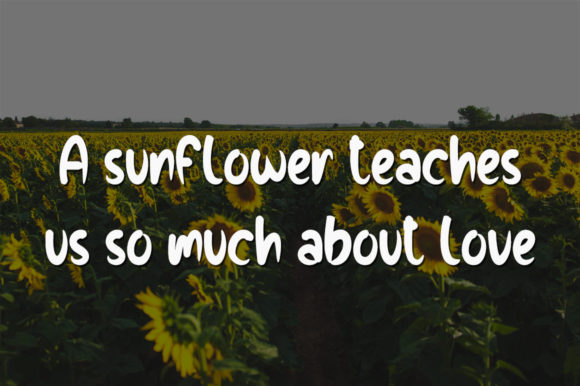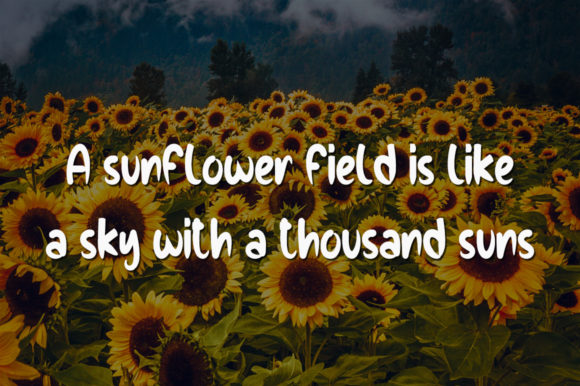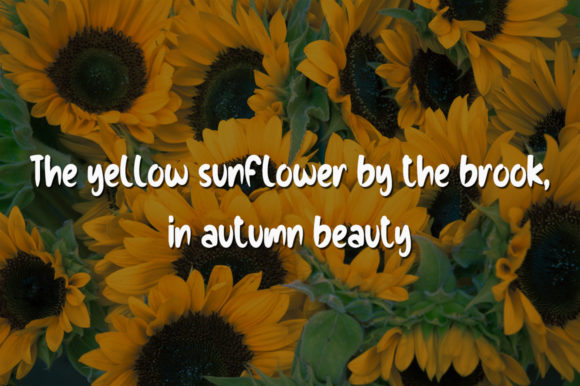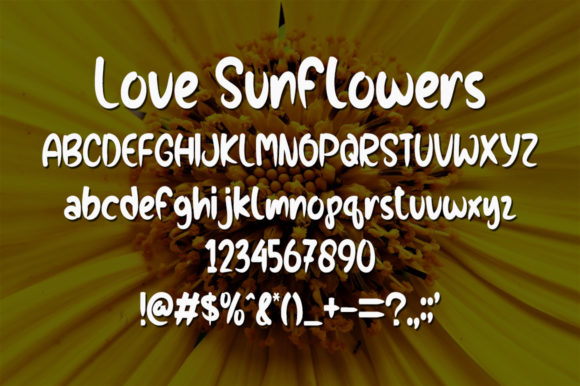
Introduction to Love Sunflowers Font
Have you ever stumbled upon a design project that sparks joy and creativity? Maybe it’s a beautiful sunset, a vibrant painting, or a handwritten note from a loved one. For designers, these moments often serve as a reminder of the power of creative expression. And for those who appreciate the beauty of handwritten fonts, the Love Sunflowers Font is a treasure trove of inspiration.
This classic handwritten font is a design resource that never fails to put a smile on our faces. With its elegant, flowing lines and soft curves, it’s the perfect choice for creating high-quality designs that exude warmth and personality. Whether you’re working on a digital project or printing out a physical design, the Love Sunflowers Font is sure to add a touch of magic to your creations.
One of the best things about this font is its versatility. Use it to create eye-catching graphics with a transparent background, or pair it with other fonts to add depth and interest to your designs. And the best part? It’s available for free download, making it an accessible design resource for creatives of all levels.
Key Features of Love Sunflowers Font
- High-quality, free download design resource ideal for creative projects
- Unique, hand-drawn design featuring sunflowers with a transparent background for versatile usage
- Perfect for adding a touch of warmth and personality to your design, from invitations to branding materials
- Love Sunflowers Font is a one-of-a-kind design resource that will elevate your creative project to the next level
Honest Review: Love Sunflowers Font
As a designer, I’m always on the lookout for high-quality design resources that can elevate my creative projects. The Love Sunflowers Font is one such resource that caught my attention.
What works well is the playful, whimsical feel of this font, making it perfect for projects that require a touch of elegance and sophistication. The font is available for free download, which is a huge bonus for designers working on a budget.
- High-quality design: The Love Sunflowers Font is beautifully crafted, with crisp lines and smooth curves.
- Transparent background: This allows designers to easily use the font on any background, making it incredibly versatile.
- Perfect for creative projects: Whether it’s a wedding invitation, a children’s book, or a promotional campaign, this font is sure to impress.
However, I do have to mention that the font is a bit limited in terms of its versatility. It’s primarily designed for use in floral-themed projects, which might not be suitable for all design projects.
Overall, I’m impressed with the Love Sunflowers Font. Its high-quality design and transparent background make it a valuable addition to any designer’s toolkit. While it may have some limitations, it’s a great resource for designers working on creative projects that require a touch of elegance and sophistication.
How to Use Love Sunflowers Font
For Adobe Photoshop and Illustrator, import the font file as a vector graphic or image. Use the font to create unique designs, such as logos, icons, or typography-based art. The high-quality image will ensure crisp and clear results.
To use the Love Sunflowers Font in PowerPoint or Word, follow these steps: insert the font file as an image, resize it as needed, and apply it to your text. This font is a great addition to any presentation or document, adding a touch of creativity and visual appeal.
Experiment with different font sizes, colors, and arrangements to create unique designs. Use the transparent background to layer the font over other images or backgrounds. Don’t be afraid to get creative and try new things!
The Love Sunflowers Font is perfect for various creative projects, including: social media graphics, posters, flyers, logos, icons, typography-based art, presentations, and documents.
No, the Love Sunflowers Font does not have a transparent background. However, you can easily create a transparent background by using a design software like Adobe Illustrator or Photoshop and applying a transparent layer to the font.
Is the Love Sunflowers Font suitable for large-scale designs?
Yes, the Love Sunflowers Font is designed to be scalable and can be used for large-scale designs, such as billboards, posters, and signage. The font’s high-quality design ensures that it remains clear and legible even at large sizes.